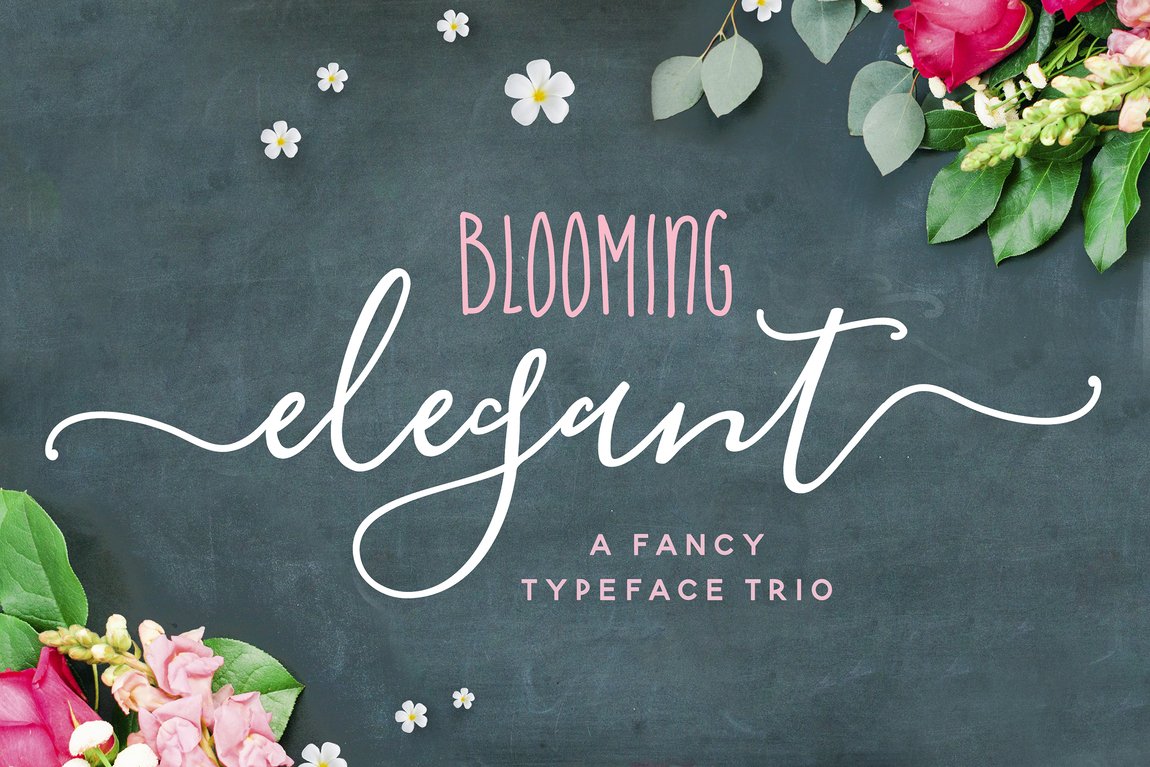
Blooming Elegant Font Trio
Blooming Elegant Font Trio by Nicky Laatz
Introducing the new and ever-so-lovely Blooming Elegant Font Trio…a delightful little Font-family with an elegant yet playful nature.
Blooming Elegant consists of three fonts designed to compliment each other perfectly. Together or apart the fonts are ideal for adding that special 'hand lettered' look to your designs.
THE FONTS :
1.) Blooming Elegant Regular : An elegant yet playful script with a super flirty baseline, perfect for Branding, Logos, Greeting Cards,Wedding Stationery and Quotes. It comes with a handy set of Opentype Stylistic Alternates, Ligatures and Individual Swashes - all to add an authentic touch to your designs. These are all coded with PUA Unicode - allowing folks that don't have special gylph software to access the alternates too :) - Mac users can use Font Book , and Windows users can use Character Map to view and copy any of the extra characters to paste into your favourite text editor/app.
It also comes as a Monoline font, and a Bold Monoline font - sweet!
2.) Blooming Elegant Sans : A neat little set of sturdy uppercase sans serif characters - a perfect complimentary font for both large and fine print. Available as Sans Regular, and Sans Bold.
3.) Blooming Elegant Hand : A cute hand lettered font that adds a little playfulness when combined with Blooming Elegant Regular, also equally as good on its own as a playful font :)
That’s actually SIX super sweet fonts in a neat little pack - ready to be ripped open :)